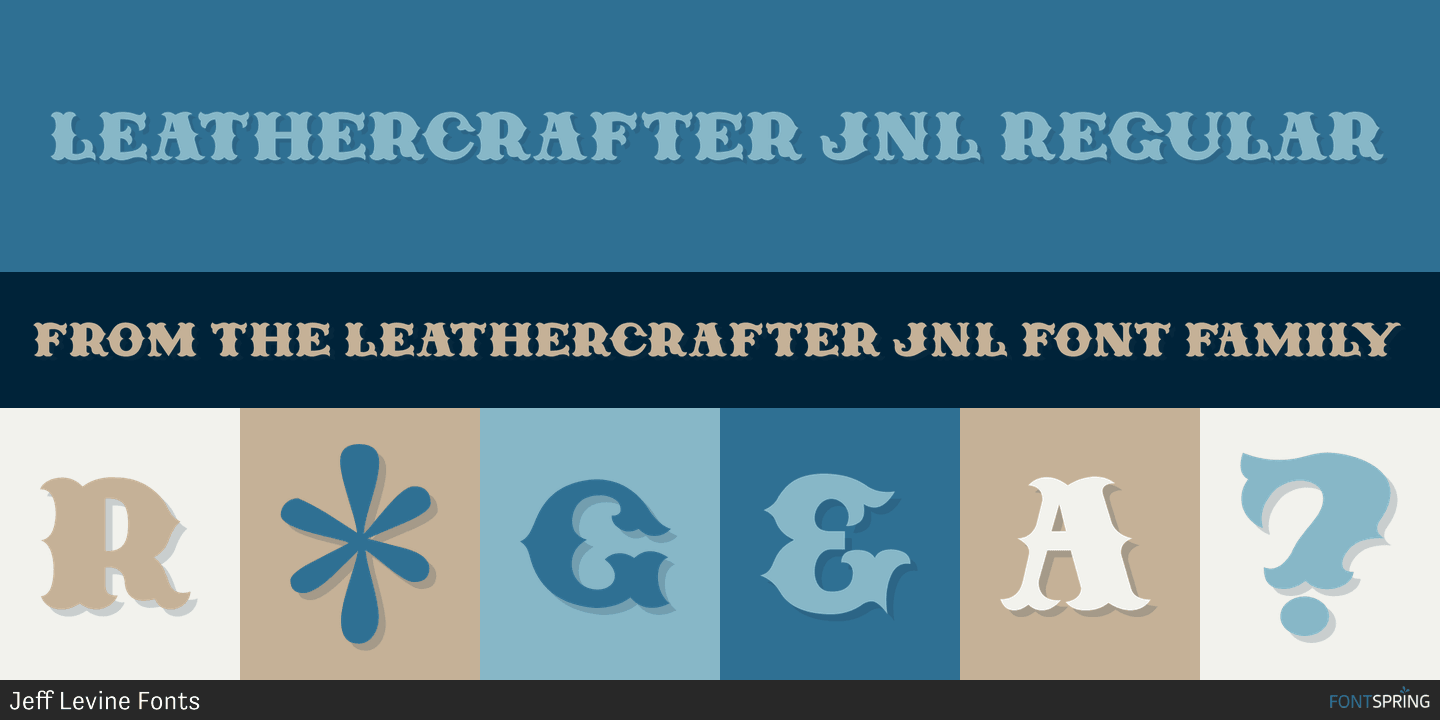
Leathercrafter Font . Thousands of designers (famous or not) use the image font detection system to find a font or similar free fonts from an image. Leathercrafter jnl recreates that same look in a digital font format, complete with the unusual and contrasting letter shapes. A popular hobby in the 1950s and 1960s was creating your own wallets, belts and other items from leather. Thousands of designers (famous or not) use the image font detection system to find a font or similar free fonts from an image. Download—the font meta search engine with more than 50,000 font styles to find and order. Examples and download link for the leathercrafter jnl font designed by jeff levine in 2009.
Leathercrafter jnl recreates that same look in a digital font format, complete with the unusual and contrasting letter shapes. Examples and download link for the leathercrafter jnl font designed by jeff levine in 2009. Thousands of designers (famous or not) use the image font detection system to find a font or similar free fonts from an image. Download—the font meta search engine with more than 50,000 font styles to find and order. Thousands of designers (famous or not) use the image font detection system to find a font or similar free fonts from an image. A popular hobby in the 1950s and 1960s was creating your own wallets, belts and other items from leather.
Leathercrafter's Studio Textures on Creative Market Leathercrafter Font A popular hobby in the 1950s and 1960s was creating your own wallets, belts and other items from leather. Examples and download link for the leathercrafter jnl font designed by jeff levine in 2009. Download—the font meta search engine with more than 50,000 font styles to find and order. Thousands of designers (famous or not) use the image font detection. Leathercrafter Font.
The Ultimate Handcrafted Fonts Collection Tom Chalky Leathercrafter Font Thousands of designers (famous or not) use the image font detection system to find a font or similar free fonts from an image. Download—the font meta search engine with more than 50,000 font styles to find and order. A popular hobby in the 1950s and 1960s was creating your own wallets, belts and other items from leather. Leathercrafter jnl recreates. Leathercrafter Font.
Leathercrafter JNL Font A popular hobby in the 1950s and 1960s was Leathercrafter Font Leathercrafter jnl recreates that same look in a digital font format, complete with the unusual and contrasting letter shapes. A popular hobby in the 1950s and 1960s was creating your own wallets, belts and other items from leather. Thousands of designers (famous or not) use the image font detection system to find a font or similar free fonts from an. Leathercrafter Font.
Crafter Logo, Leather Company, Brand Logo, ? Logo, Leather Products Leathercrafter Font Thousands of designers (famous or not) use the image font detection system to find a font or similar free fonts from an image. Download—the font meta search engine with more than 50,000 font styles to find and order. Leathercrafter jnl recreates that same look in a digital font format, complete with the unusual and contrasting letter shapes. Examples and download. Leathercrafter Font.
set collection leather craft logo icon design 3220207 Vector Art at Leathercrafter Font A popular hobby in the 1950s and 1960s was creating your own wallets, belts and other items from leather. Examples and download link for the leathercrafter jnl font designed by jeff levine in 2009. Thousands of designers (famous or not) use the image font detection system to find a font or similar free fonts from an image. Thousands of designers. Leathercrafter Font.
Crafter Font Download Free for Desktop & font Leathercrafter Font Leathercrafter jnl recreates that same look in a digital font format, complete with the unusual and contrasting letter shapes. Download—the font meta search engine with more than 50,000 font styles to find and order. A popular hobby in the 1950s and 1960s was creating your own wallets, belts and other items from leather. Thousands of designers (famous or not) use. Leathercrafter Font.